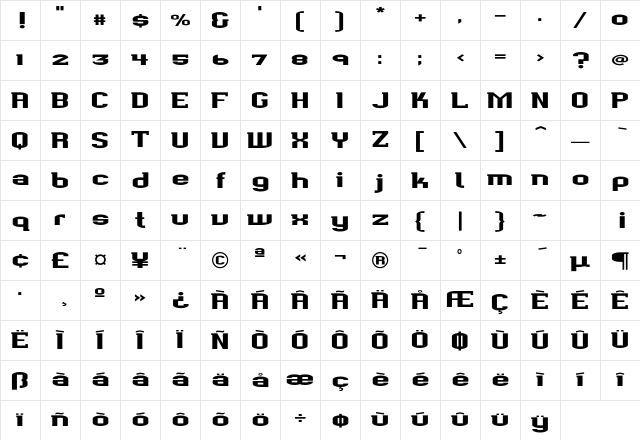
Werkman Square Free Font
Werkman Square
Style: Square
Werkman Family
Werkman Square
Design Context for Werkman
Werkman is a composed and adaptable typeface that performs quietly and consistently across a wide range of design contexts.